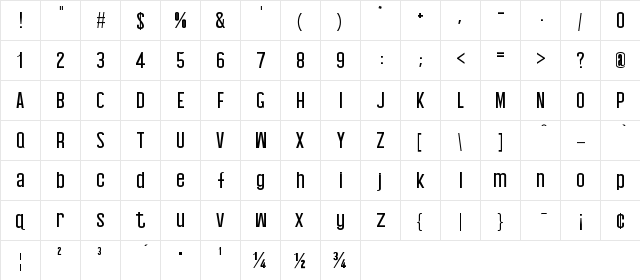
Baby Blues Regular Font Preview
Baby Blues Regular
Baby Blues Regular Font Details
Design Context for Baby Blues Typeface
Baby Blues is a composed and adaptable typeface that performs quietly and consistently across a wide range of design contexts.
Pro Tip: Pair Baby Blues with a font of contrasting weight or personality to build a more expressive typographic hierarchy.